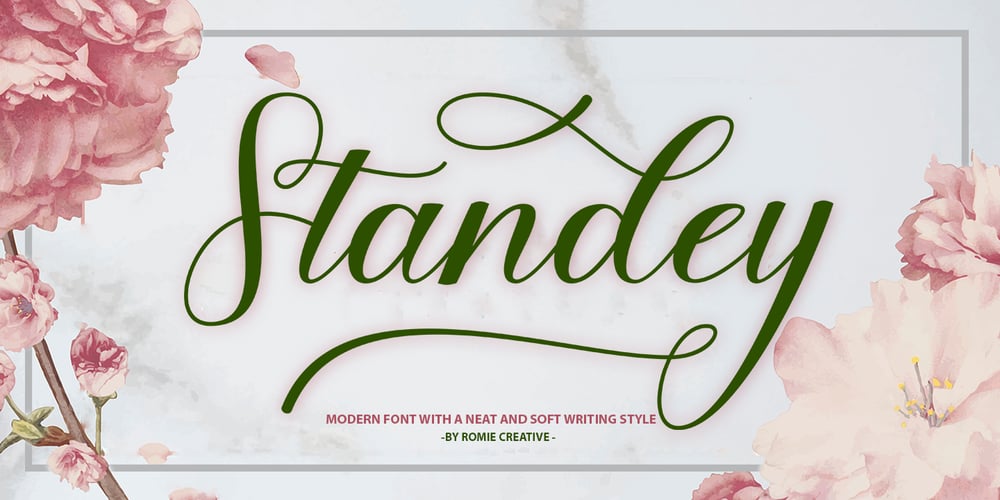
Standey Script Font Family was designed by Romi Rahmadi and published by Romie Creative. Standey Script contains 1 styles and family package options. Standey Script is a modern calligraphy design. This font is casual and beautiful with swashes and will be great for logos, product packaging, wedding invitations, branding, headlines, signage, labels, signatures, book covers, posters, quotes, and more. Standey Script includes changes in OpenType language style and international support for most Western languages. To activate the OpenType Stylistic alternative, you need a program that supports OpenType features such as Adobe Illustrator CS, Adobe Indesign & CorelDraw X6-X7, Microsoft Word 2010 or newer versions. Standey Script is coded with Unicode PUA, which allows full access to all additional characters without having to design special software. Mac users can use Letter Books, and Windows users can use Character Maps to view and copy any of the additional characters to be entered into your favorite text editor / application. If you need help or have questions, let me know. I’am happy to help.